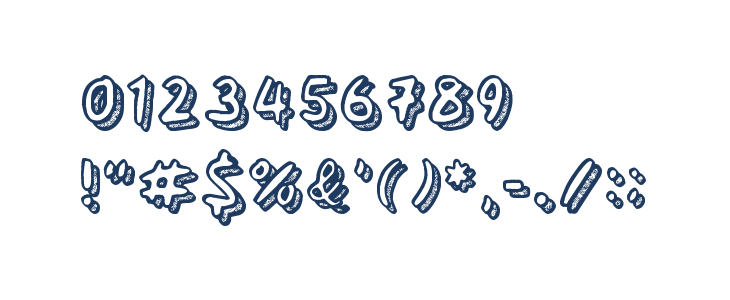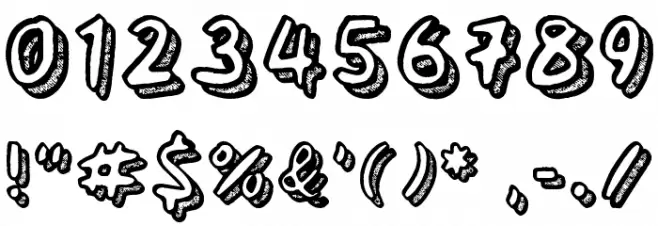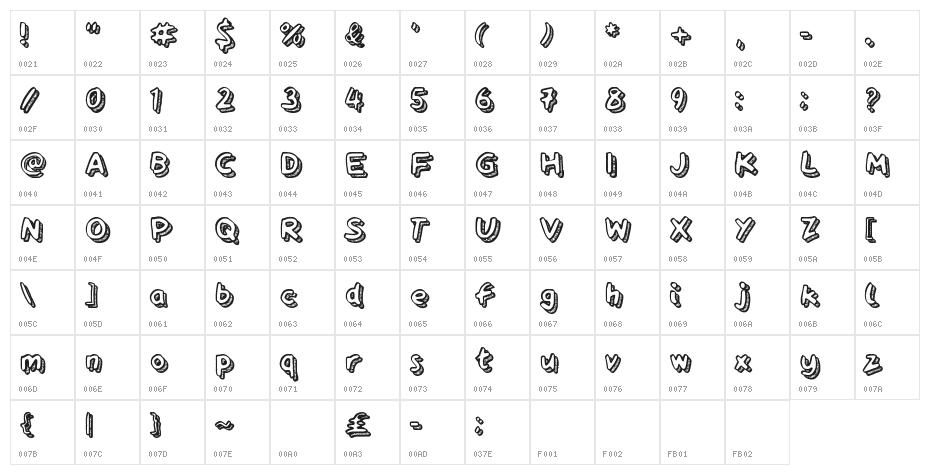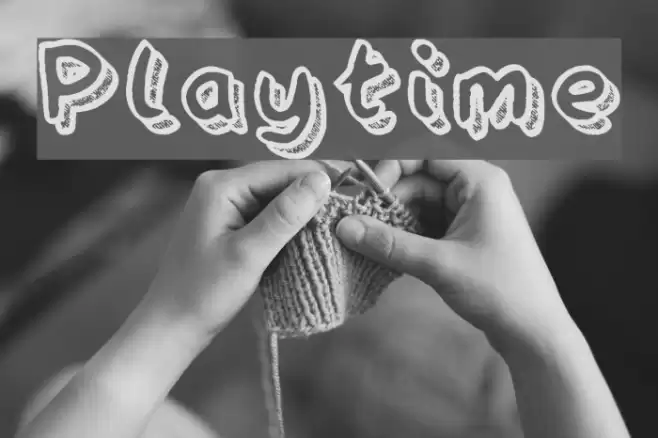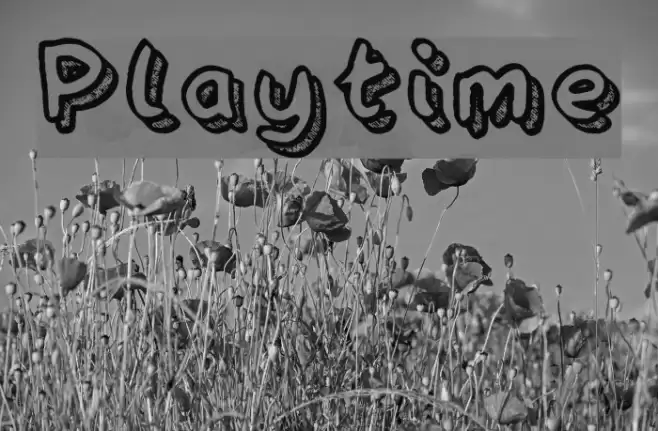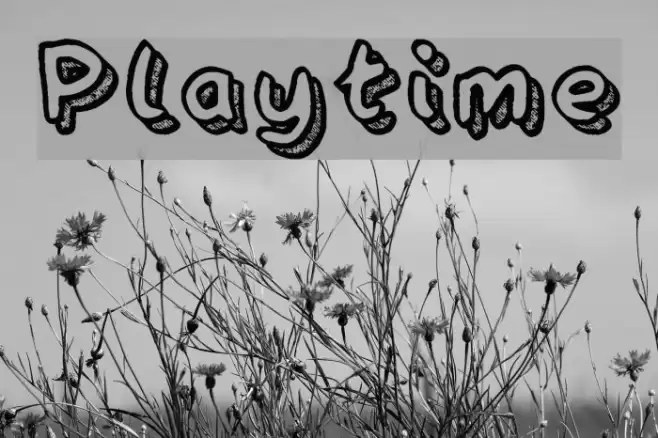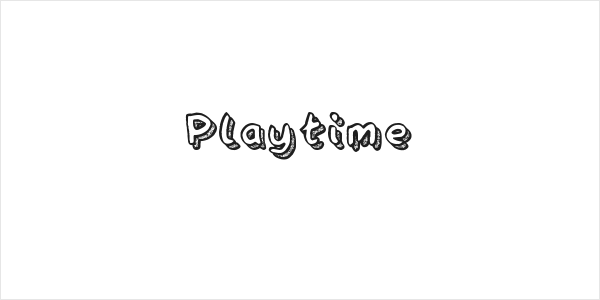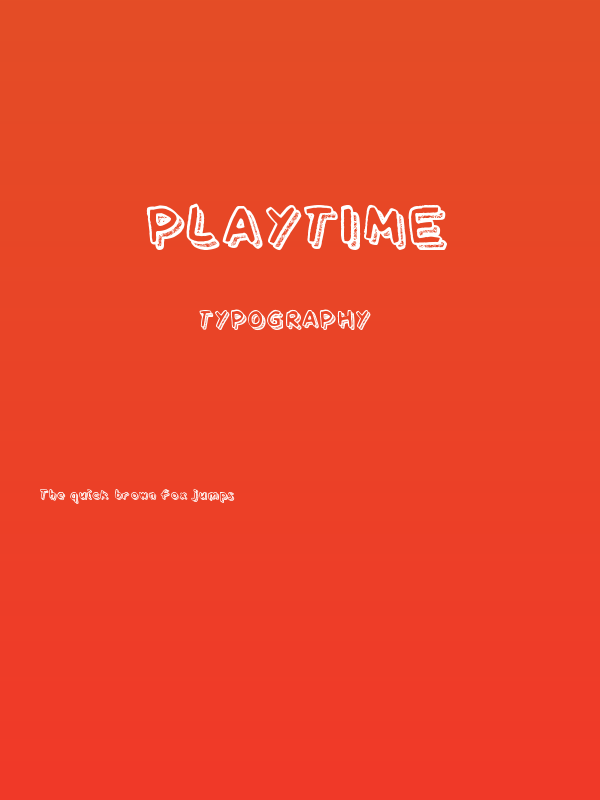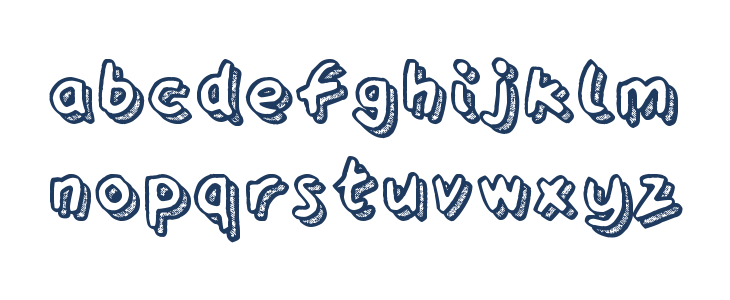
Playtime Font
Playtime Description
This playful and whimsical font features a hand-drawn, doodle-like style with a bold outline and textured fill. The characters are slightly irregular, adding to the casual and fun aesthetic. The uppercase and lowercase letters maintain a consistent style, with rounded edges and a bouncy baseline that gives a sense of movement. Numbers and special characters are designed to match the playful theme, making the font versatile for creative projects. The overall appearance is engaging and lively, perfect for capturing attention.